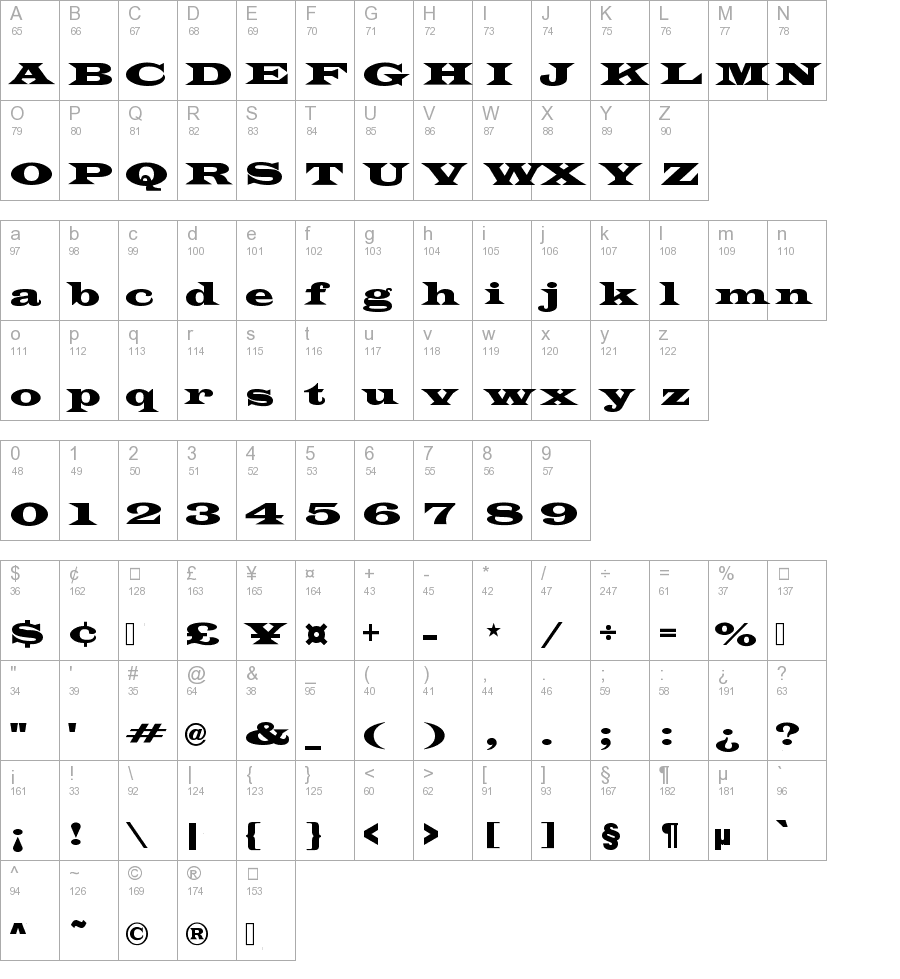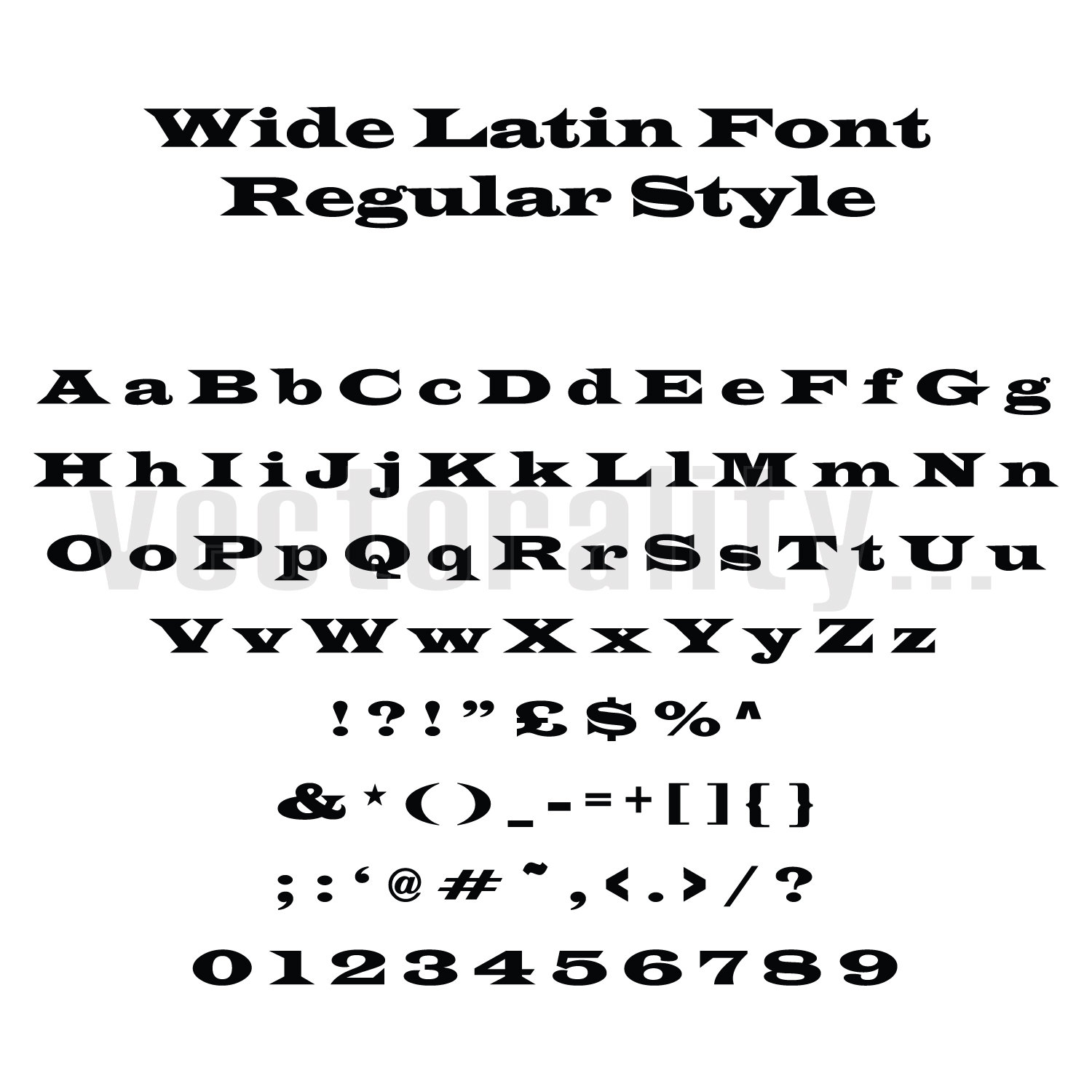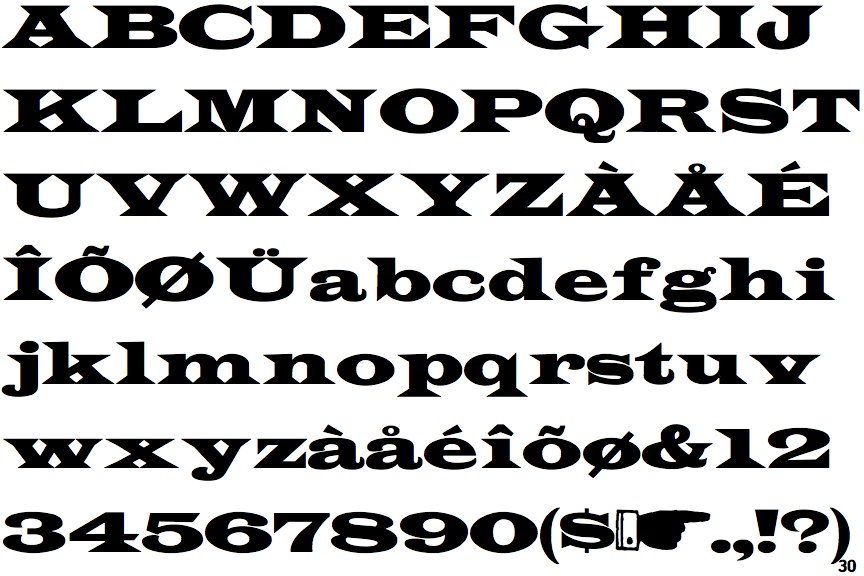
Wide Latin Font
Wide Latin Font - Download free font wide latin by from category various. Wide latin has been much used and not a little abused as well. Web wide latin font | fonts2u.com. Wide latin truetype personal use. Web free latin fonts with unique, stylish designs and bold shapes for your creative projects. Web this fundamental typeface wide latin typeface was 1 created by the famous graphic designer stephenson blake and released by one of the popular. For example, more logotypes than you can shake a stick at have used wide latin.
For example, more logotypes than you can shake a stick at have used wide latin. Download free font wide latin by from category various. Web wide latin font | fonts2u.com. Wide latin truetype personal use. Web free latin fonts with unique, stylish designs and bold shapes for your creative projects. Web this fundamental typeface wide latin typeface was 1 created by the famous graphic designer stephenson blake and released by one of the popular. Wide latin has been much used and not a little abused as well.
Wide latin has been much used and not a little abused as well. Download free font wide latin by from category various. Wide latin truetype personal use. Web this fundamental typeface wide latin typeface was 1 created by the famous graphic designer stephenson blake and released by one of the popular. Web free latin fonts with unique, stylish designs and bold shapes for your creative projects. For example, more logotypes than you can shake a stick at have used wide latin. Web wide latin font | fonts2u.com.
Web free latin fonts with unique, stylish designs and bold shapes for your creative projects. Download free font wide latin by from category various. Web wide latin font | fonts2u.com. Wide latin has been much used and not a little abused as well. For example, more logotypes than you can shake a stick at have used wide latin.
Download free font wide latin by from category various. Wide latin has been much used and not a little abused as well. Wide latin truetype personal use. Web this fundamental typeface wide latin typeface was 1 created by the famous graphic designer stephenson blake and released by one of the popular. Web free latin fonts with unique, stylish designs and.
Download free font wide latin by from category various. Web wide latin font | fonts2u.com. For example, more logotypes than you can shake a stick at have used wide latin. Web this fundamental typeface wide latin typeface was 1 created by the famous graphic designer stephenson blake and released by one of the popular. Wide latin truetype personal use.
Wide Latin Font
Web free latin fonts with unique, stylish designs and bold shapes for your creative projects. For example, more logotypes than you can shake a stick at have used wide latin. Web wide latin font | fonts2u.com. Wide latin truetype personal use. Wide latin has been much used and not a little abused as well.
Web this fundamental typeface wide latin typeface was 1 created by the famous graphic designer stephenson blake and released by one of the popular. Download free font wide latin by from category various. Web wide latin font | fonts2u.com. Wide latin has been much used and not a little abused as well. For example, more logotypes than you can shake.
Web this fundamental typeface wide latin typeface was 1 created by the famous graphic designer stephenson blake and released by one of the popular. Wide latin has been much used and not a little abused as well. Download free font wide latin by from category various. Web free latin fonts with unique, stylish designs and bold shapes for your creative.
Download free Wide Latin Regular font
Web wide latin font | fonts2u.com. Wide latin truetype personal use. Download free font wide latin by from category various. Web free latin fonts with unique, stylish designs and bold shapes for your creative projects. Web this fundamental typeface wide latin typeface was 1 created by the famous graphic designer stephenson blake and released by one of the popular.
Wide Latin Font Regular Style Alphabet Numbers Letters Vector Etsy
Wide latin truetype personal use. Download free font wide latin by from category various. Wide latin has been much used and not a little abused as well. Web free latin fonts with unique, stylish designs and bold shapes for your creative projects. Web this fundamental typeface wide latin typeface was 1 created by the famous graphic designer stephenson blake and.
Wide Latin Font Free Download
Web free latin fonts with unique, stylish designs and bold shapes for your creative projects. Web this fundamental typeface wide latin typeface was 1 created by the famous graphic designer stephenson blake and released by one of the popular. For example, more logotypes than you can shake a stick at have used wide latin. Wide latin truetype personal use. Web.
Wide Latin Truetype Personal Use.
For example, more logotypes than you can shake a stick at have used wide latin. Download free font wide latin by from category various. Web this fundamental typeface wide latin typeface was 1 created by the famous graphic designer stephenson blake and released by one of the popular. Web wide latin font | fonts2u.com.
Wide Latin Has Been Much Used And Not A Little Abused As Well.